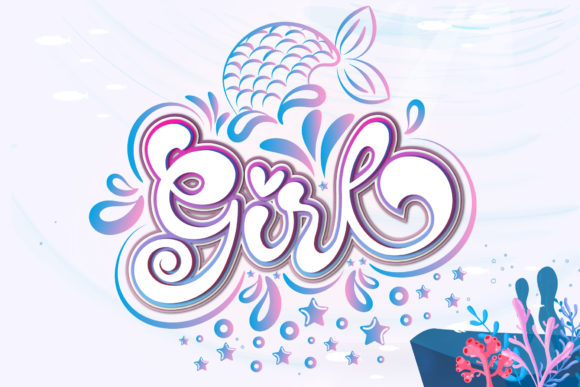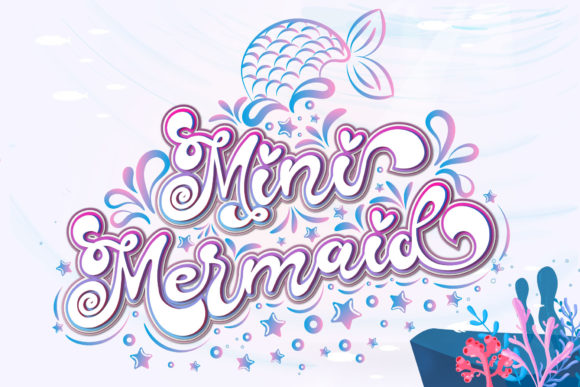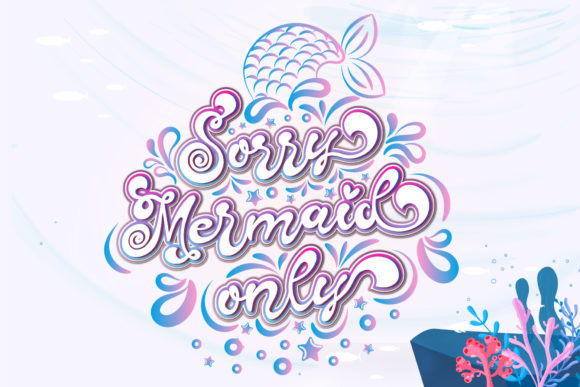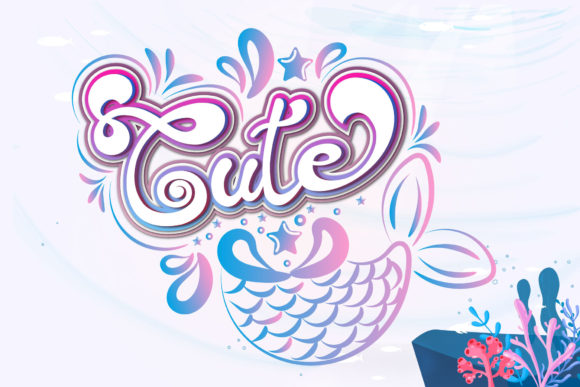
Girl Font
About the Girl Font
Presenting Girl Font, a unique and stylish typeface that will make your work stand out. Girl is a cool, incredibly detailed and chic duo font (script and dingbats). This font is PUA encoded which means you can access all of the glyphs and swashes with ease!
Fall in love with its incredibly versatile style and use it to create spectacular designs!
Girl Font’s elegant script and playful dingbats shine in branding projects for fashion, beauty, or lifestyle brands requiring a touch of sophistication and whimsy. It excels in short headlines, logos, and packaging design where its detailed glyphs add visual interest. However, avoid using it for body text or long paragraphs; its intricate nature makes it less legible at smaller sizes.
Consider pairing Girl Font with a clean sans-serif like Montserrat for a modern contrast or a classic serif like Garamond for a more timeless feel. For a bolder aesthetic, a geometric sans-serif such as Futura could provide a strong counterpoint. Its overall personality is best described as chic and playful, balancing elegance with a fun, expressive character.
The script’s swashes add a touch of handwritten charm, making it suitable for invitations or social media graphics where a personal touch is desired. Avoid using it in UI contexts where clear readability is paramount.
Girl Font Usage Examples
Girl Font Example